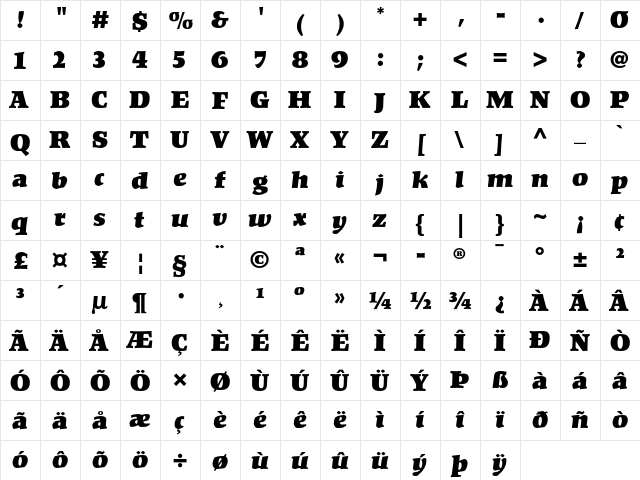
Kompakt Black
Design Context for Kompakt Typeface
Kompakt is a composed and adaptable typeface that performs quietly and consistently across a wide range of design contexts.